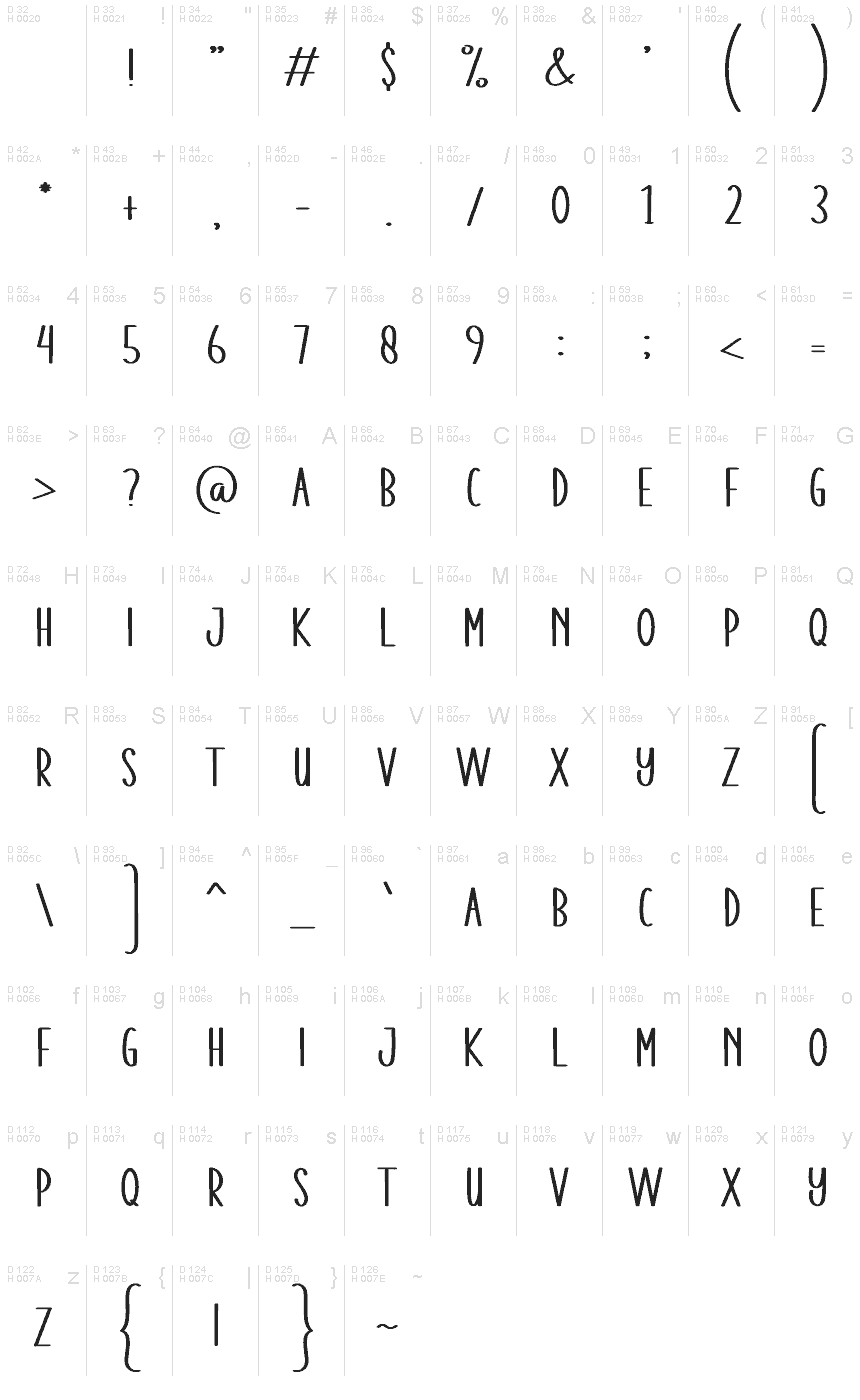
Retro Handmade
Retro Handmade font is a nostalgic, condensed brush typeface by Andi Moz. With its handcrafted, vintage-inspired look, this artistic font brings an organic feel to any project. Retro Handmade combines a touch of retro style with modern elegance while maintaining its classic appeal for spectacular results.